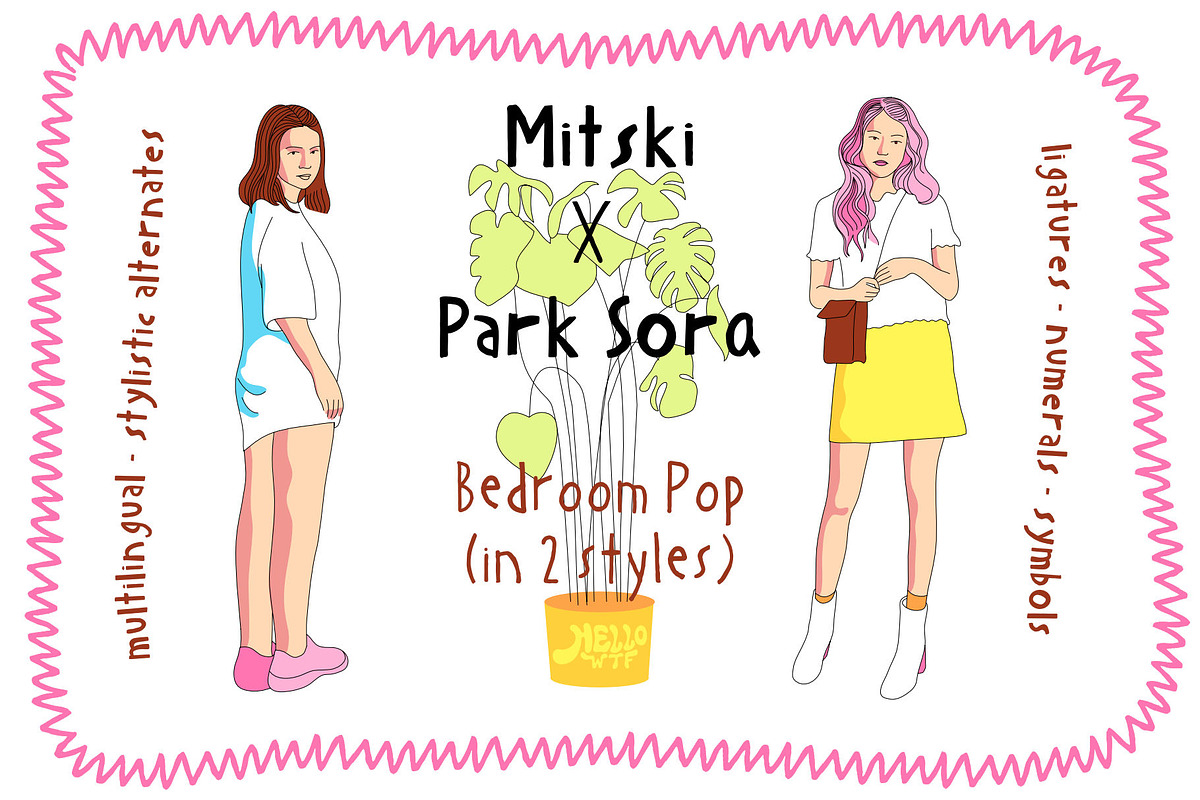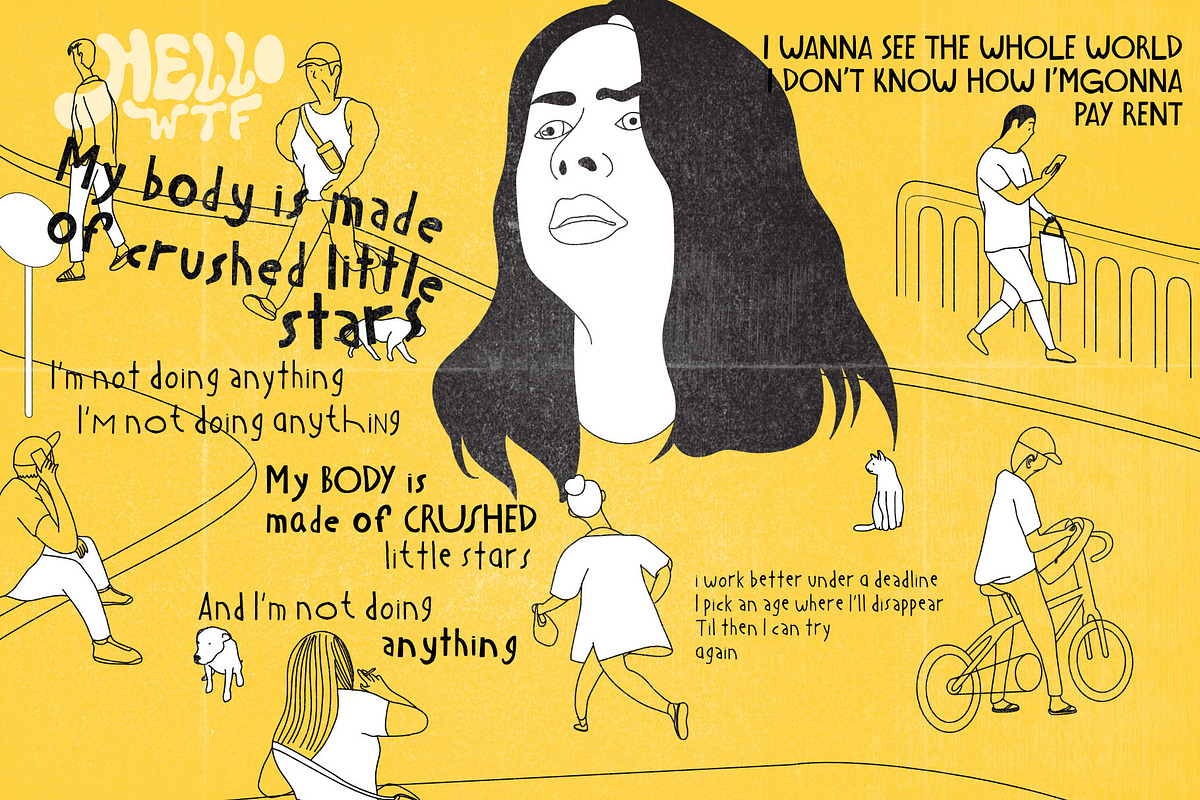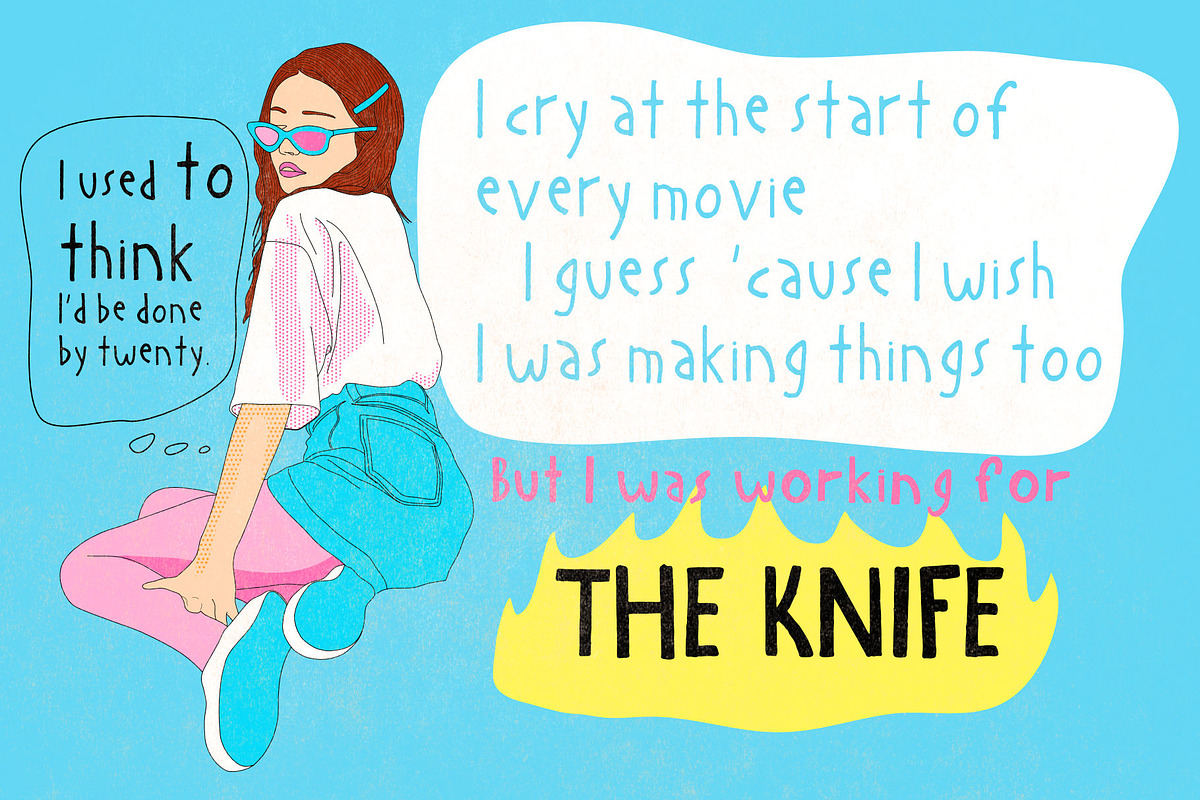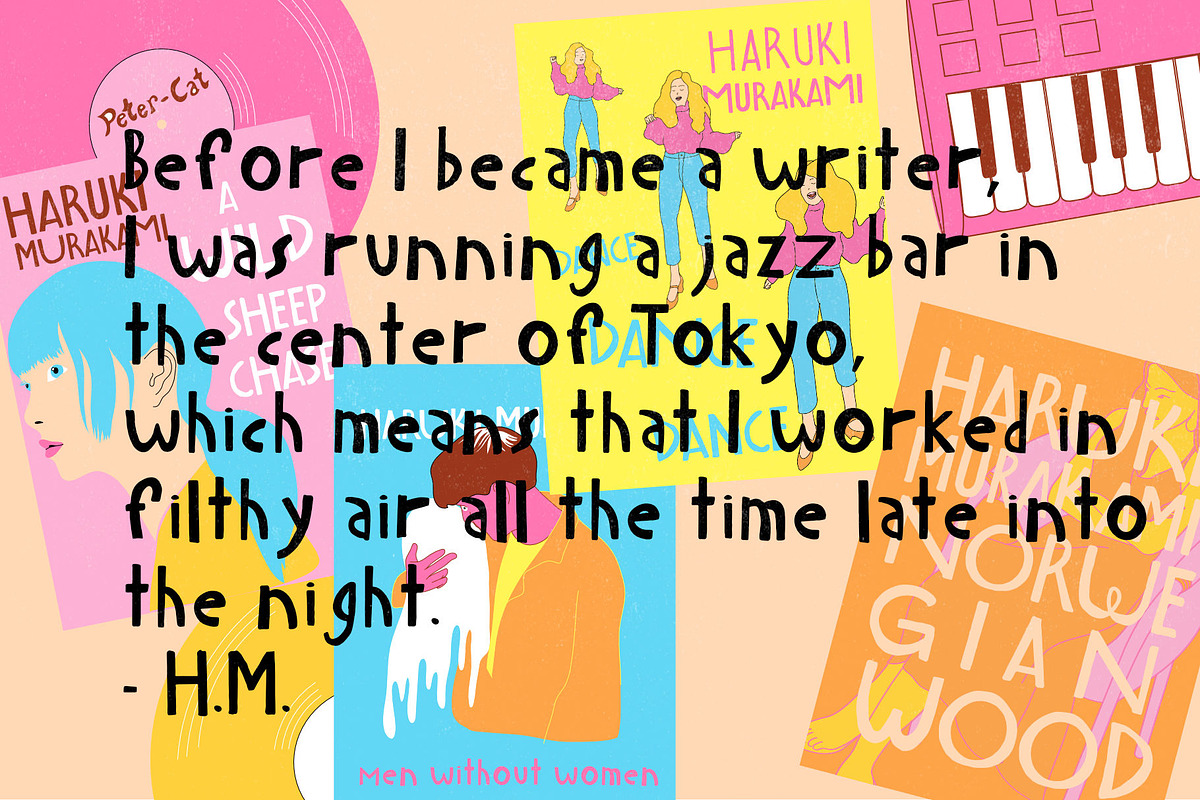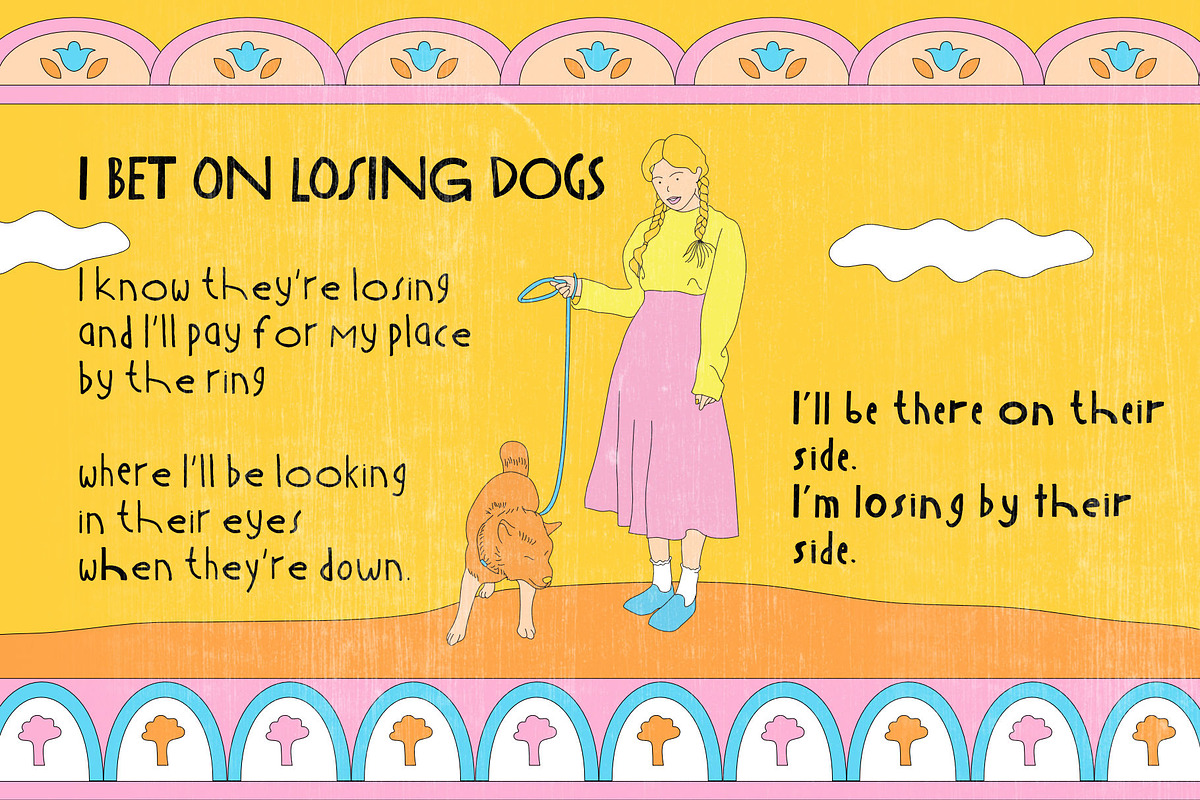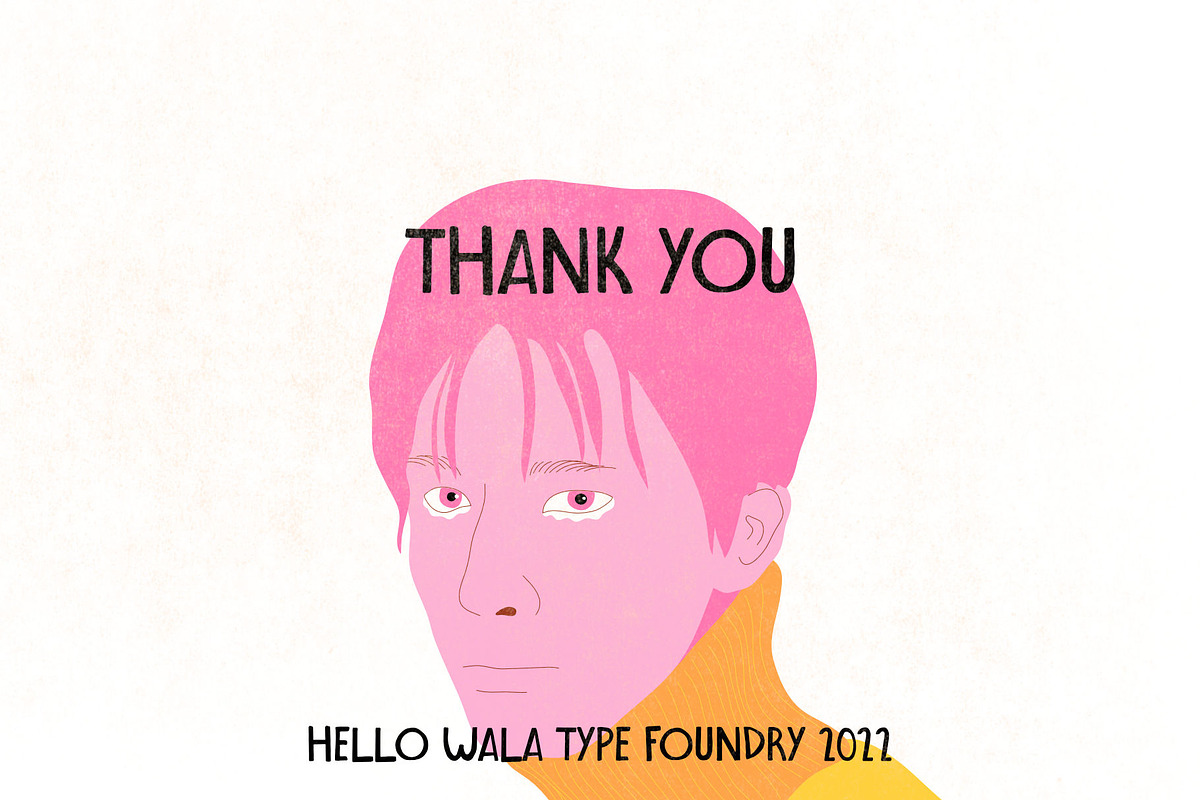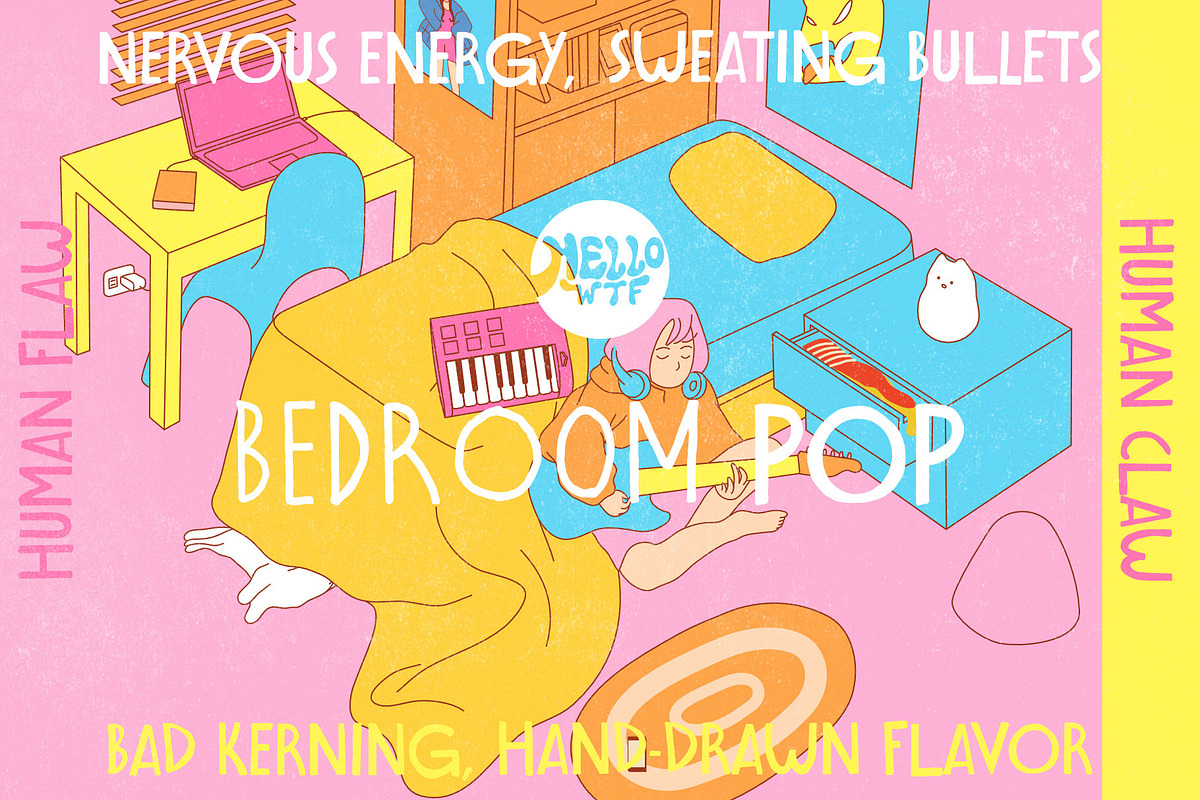
Bedroom Pop
Bedroom Pop captures the nervous energy of a nervous teen making personal pop records in the bedroom. It's flawed, spontaneous and brutally honest.